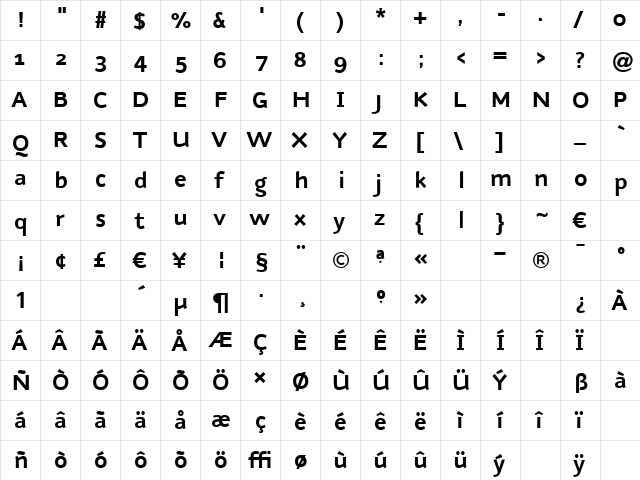
NubianBold Regular
Design Context for NubianBold Typeface
NubianBold takes a measured approach to typography — its balanced proportions and neutral character make it a reliable workhorse for both digital and print work. The heavy weight commands attention and anchors typographic hierarchies.
Pro Tip: Use NubianBold in both headline and body roles to test its range before committing to a single application.